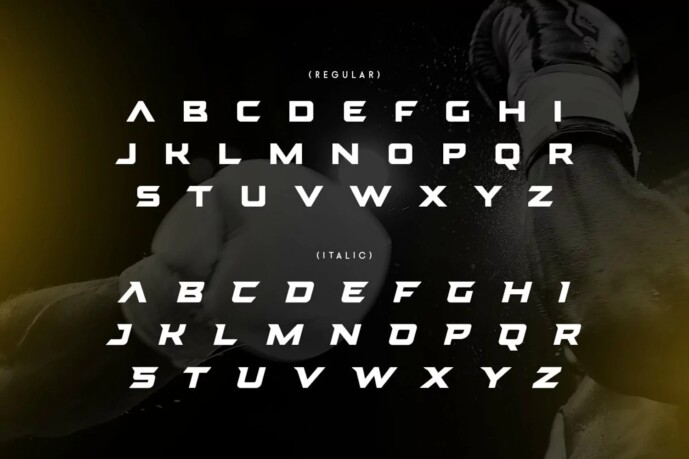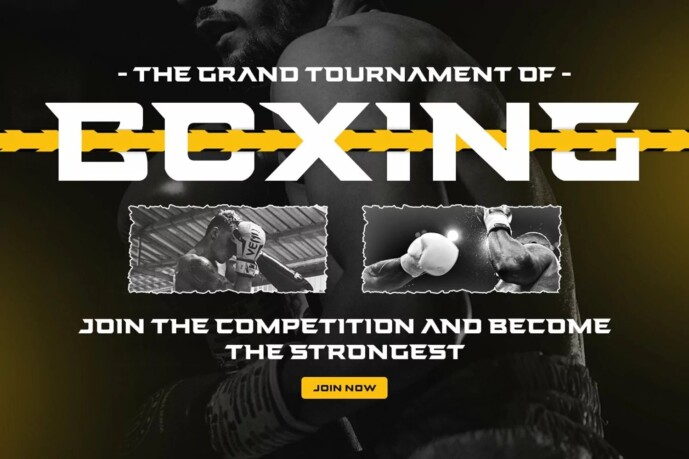
Forecast Font
Forecast Font is a Racing Car Modern Font that created special for Branding, Title and more stand out typography for sport and action. It’s so perfect to add your style and headline overview for sport, technology, actions, and fighting theme. And specially for this font, we crafted for bold action style and modern feels so enjoy to create any project that will show your main idea out.